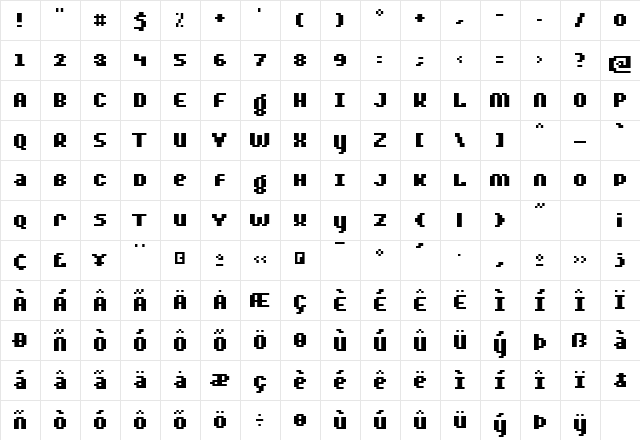
BylinearSmallCapsBold Regular
Design Context for BylinearSmallCapsBold Typeface
BylinearSmallCapsBold is a composed and adaptable typeface that performs quietly and consistently across a wide range of design contexts. Its bold stroke weight gives it real presence on the page.